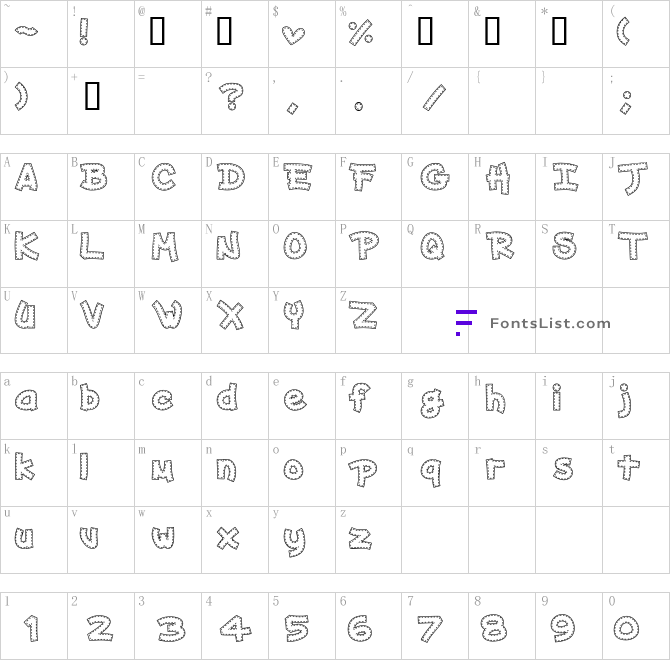
• Font Name:AKApplique White
• Full Name:AKApplique White
AKApplique-White.ttf is a very beautiful artistic font, AKApplique-White.ttf is widely used in the design and printing of various books and pictures,AKApplique-White.ttf has a strong visual impact,AKApplique-White.ttf is a commonly used font in newspapers, magazines and books, and is used in posters, e-commerce Poster design, store design, logo design, font design and other fields.AKApplique-White.